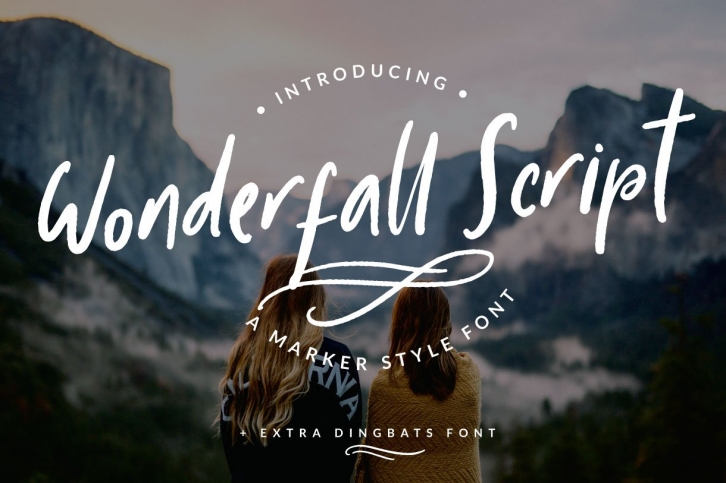
A Fall inspired font, with a natural twist and casual style. This font emulates a handwritten marker effect, just perfect if you're looking for a trendy and stylish font to use on brand logos, product packaging, digital texts and even social media quotes images.
The Wonderfall Script font is full of chill Autumn vibes, and it comes with 13 double-letter ligatures, adding that perfect natural handwritten touch to your text.
And the best part, it comes with BONUS MATERIAL!! It features an additional set of dingbats with outlined Fall floral shapes and decorative ornamental lines, plus common words such as: "Special", "Love", "Thank You!", "With", "And", "The", "For" and "New". The perfect complement for your next creative project.
• Full upper and lowercase
• Numerals and Punctuation (OpenType Standard)
• Accents (Multi-lingual support)
• Traditional Double Letter Ligatures
• Bonus font including dingbat graphics